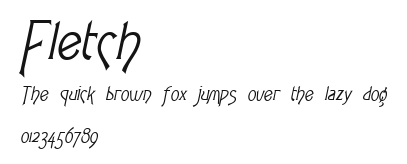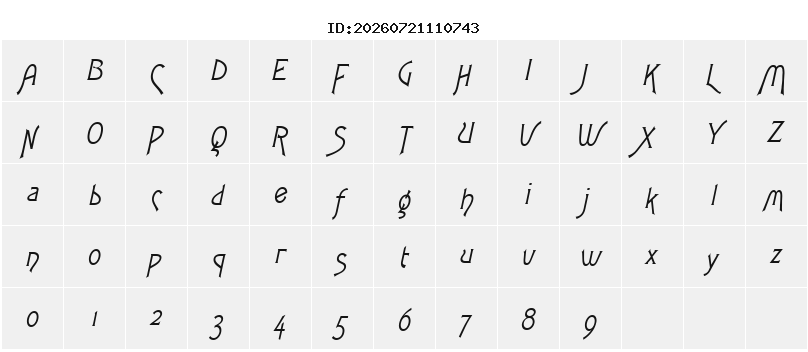
• Font Name: Fletch
• Full Font Name: Fletch Italic
About Fletch.ttf
Fletch.ttf is a modern, elegant sans-serif font designed for ultimate readability and visual harmony. Perfect for branding, headlines, web design, and print materials.